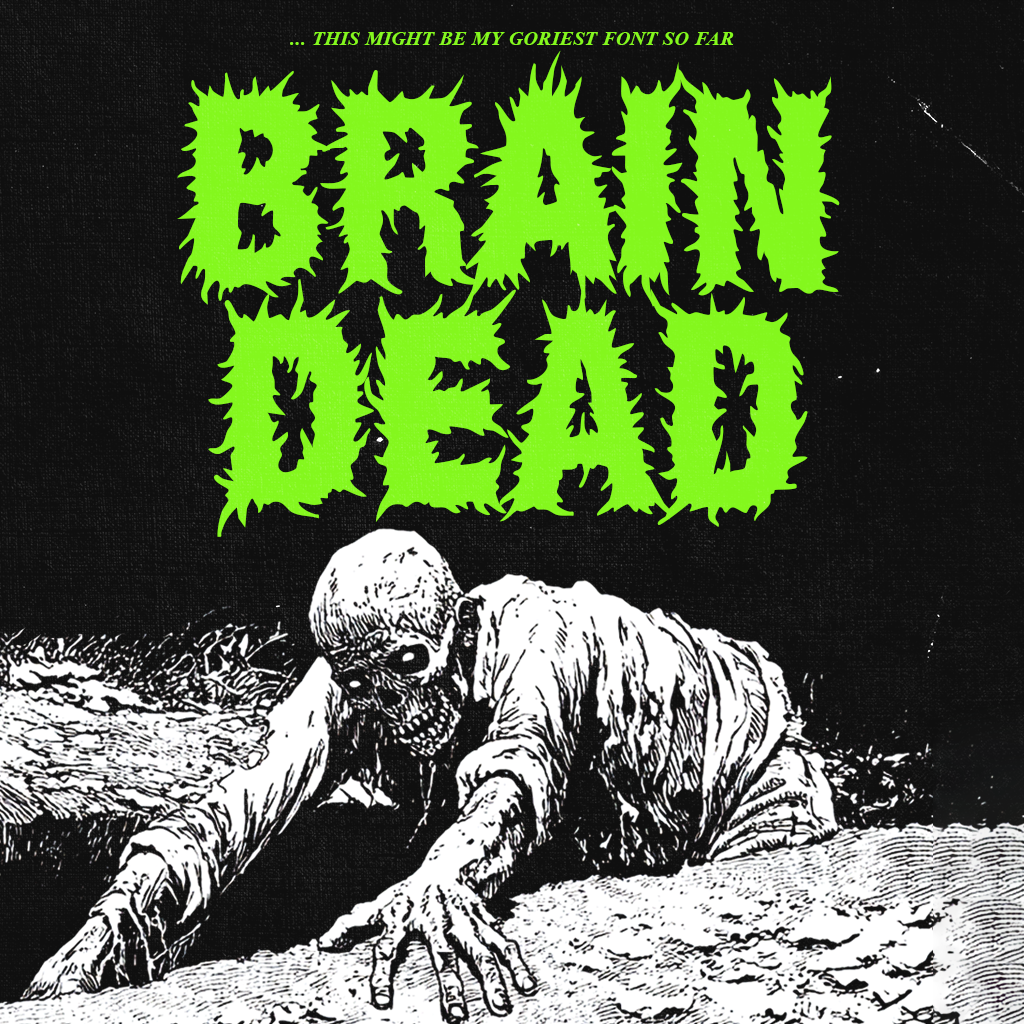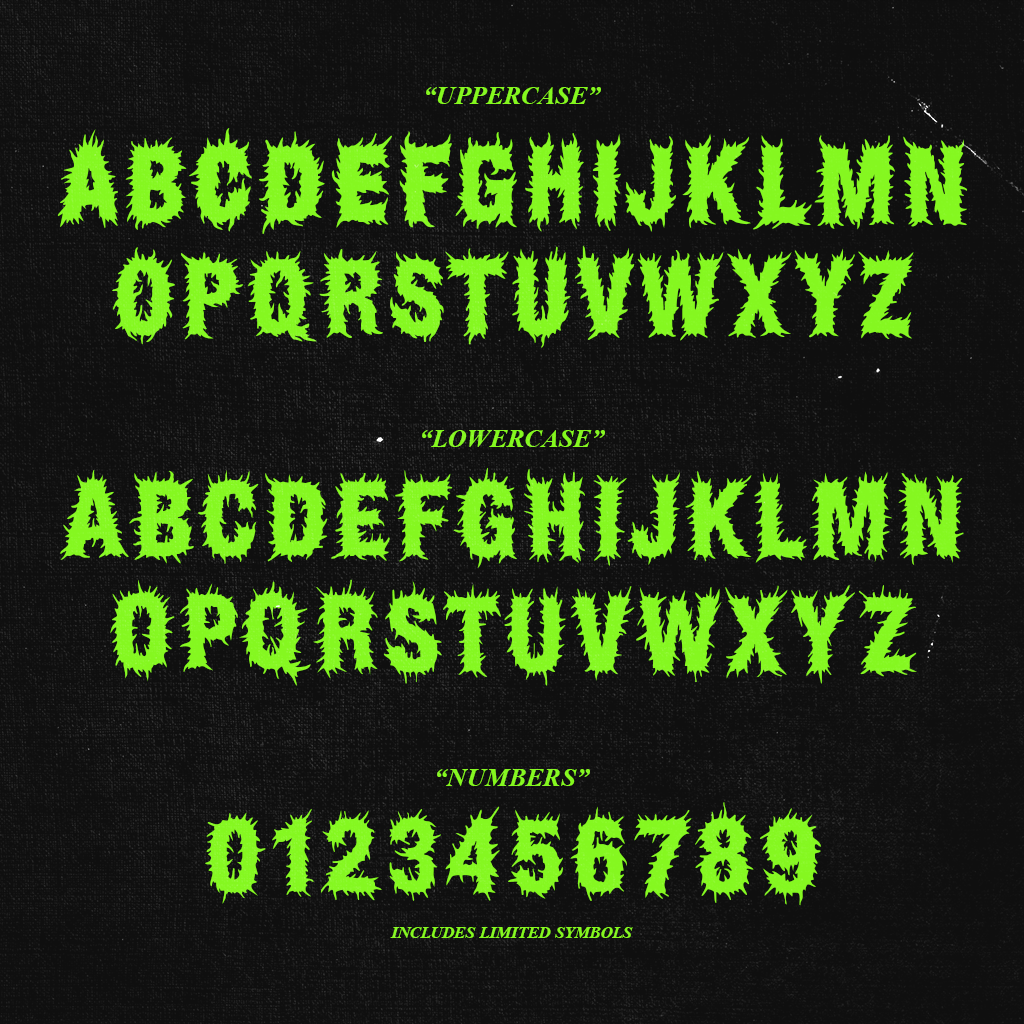
Brain Dead is an 80s horror inspired display typeface. All hand drawn with 2 variants per letter using uppercase and lowercase to give that custom hand made feel.
Full Alphabet (swapping between uppercase and lowercase gives you variations)
Numbers and select limited symbols